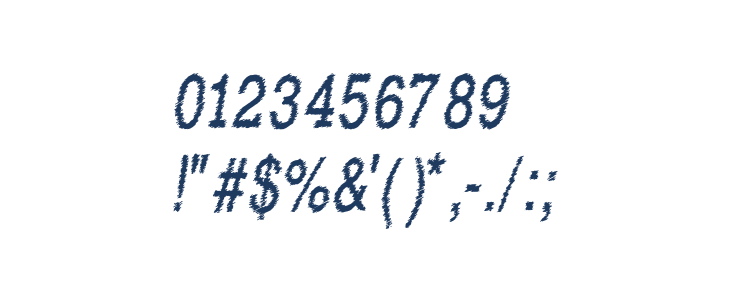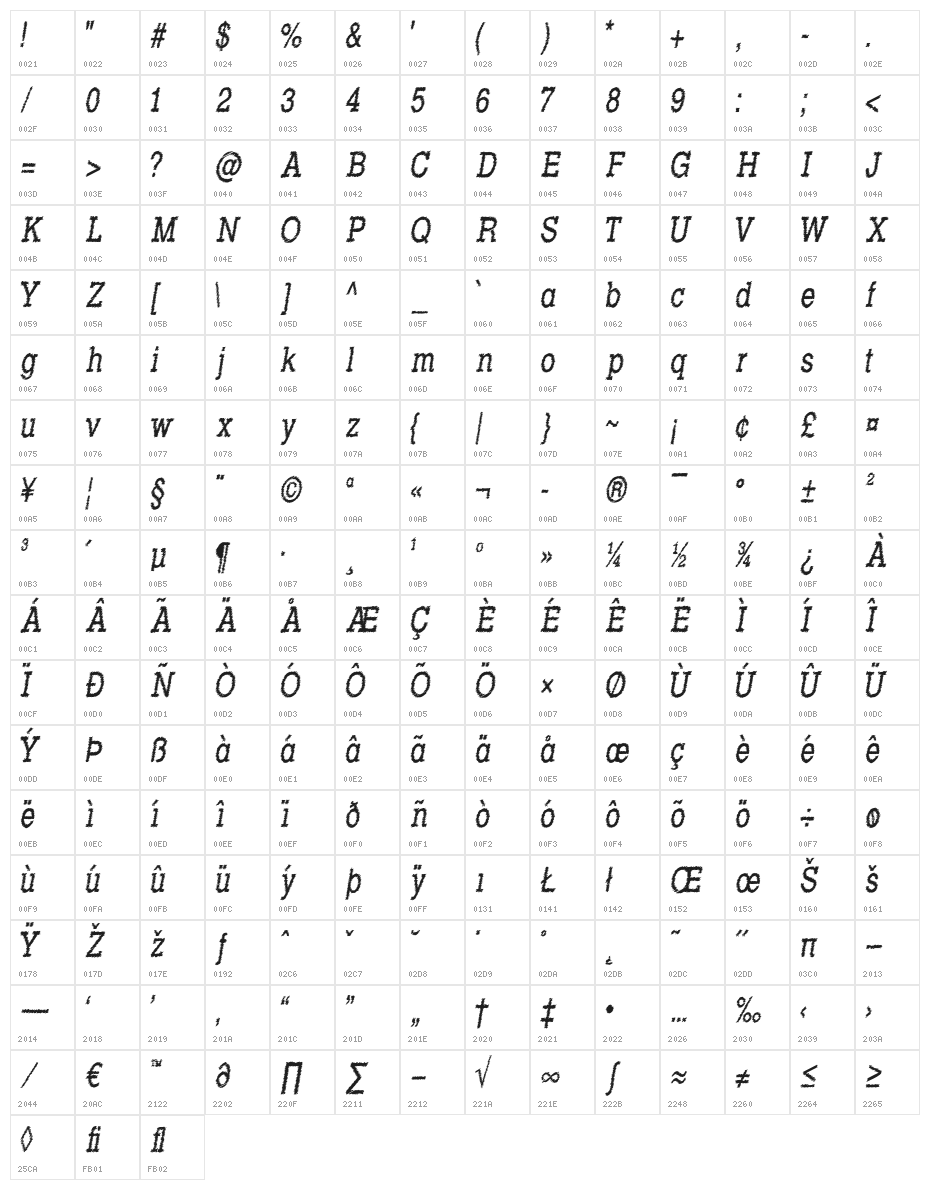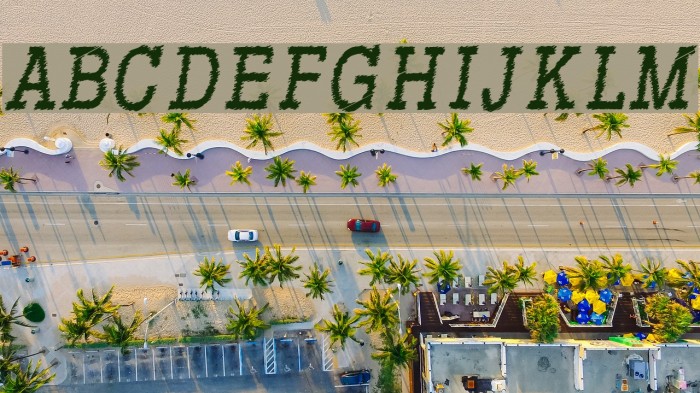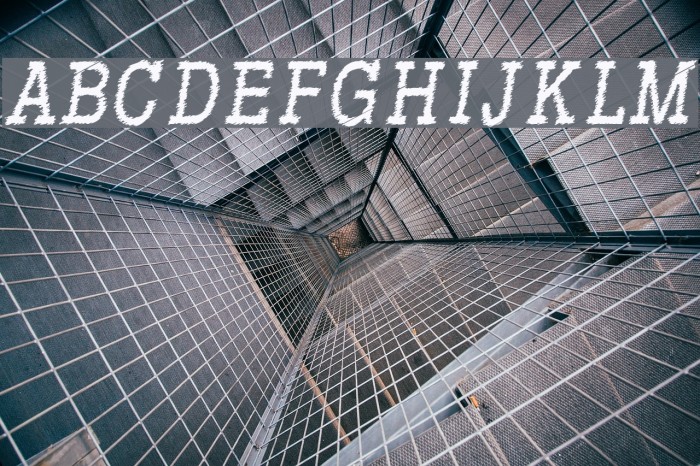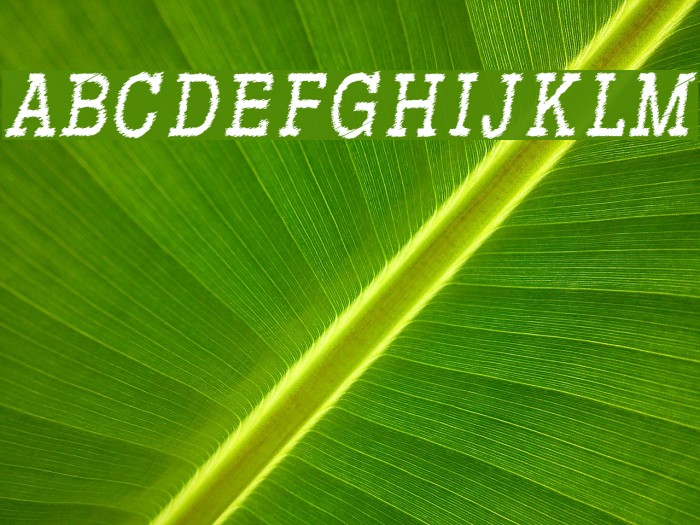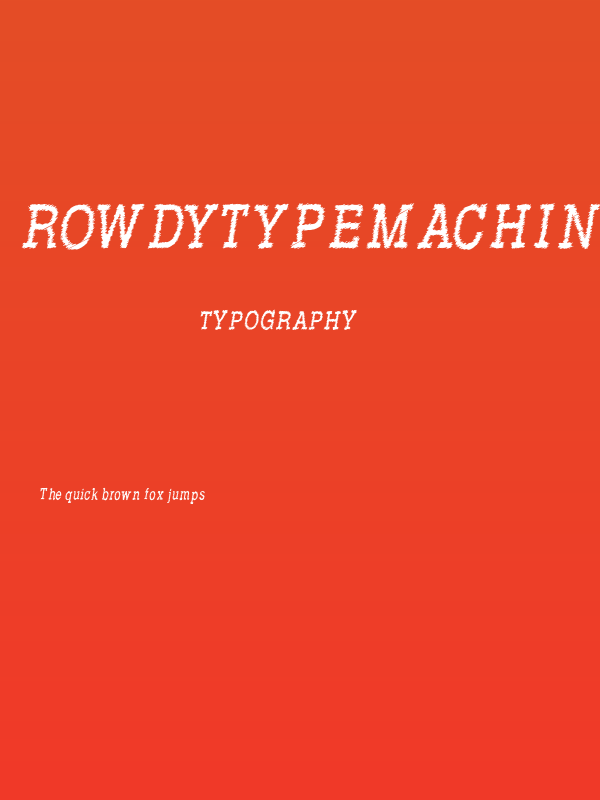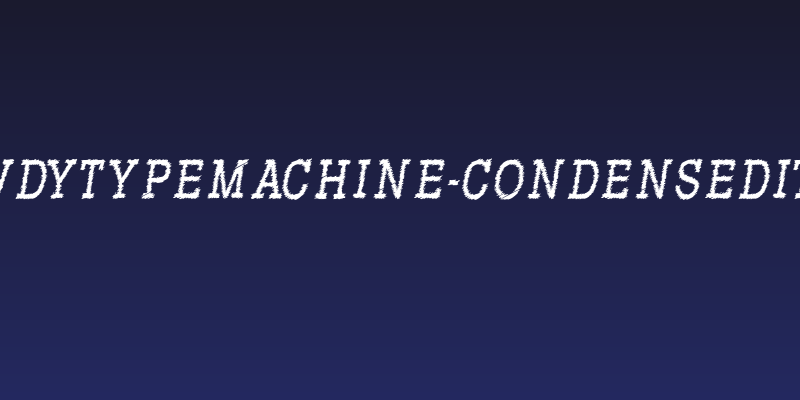
RowdyTypemachine-CondensedItali Font
RowdyTypemachine-CondensedItali Description
This font features a distinctive, textured appearance with a condensed and italicized style. The characters have a rough, hand-drawn quality, giving them a dynamic and energetic feel. The uppercase and lowercase letters maintain a consistent slant, enhancing the italic effect. The numbers and special characters follow the same stylistic approach, ensuring uniformity across all glyphs. The font's condensed nature allows for efficient use of space, making it suitable for bold statements. Its unique texture adds a layer of visual interest, making it stand out in various design contexts.
| Proposed Projects | Ideal for posters, album covers, and branding projects that require a bold, artistic touch. |